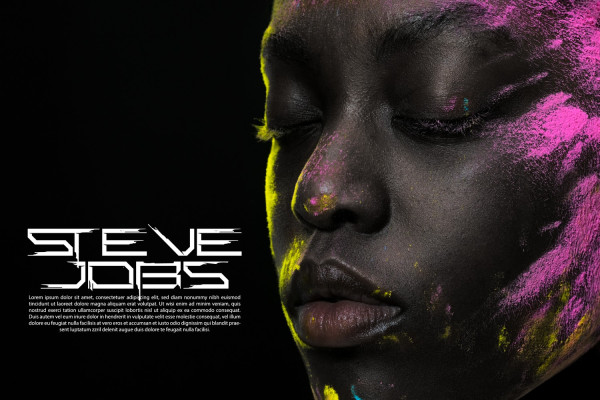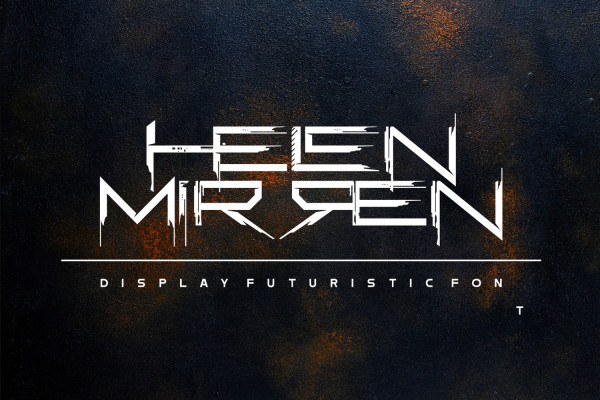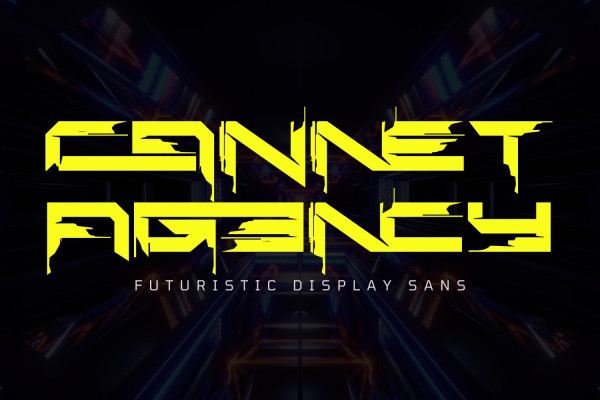
CANNET AGENCY TYPEFACE
Cannet Agency Typeface is a cyberpunk display font, one of kind techno cyber font that is versatile to apply in various design styles. It’s built to be big, sleek, and formidable—just like the mechanically engineered beings that inspired it. Take a trip through time and use it for movie posters set in space or in the future.
Cannet Agency Typeface was built with OpenType features and includes 100 ligatures, alternate, numbers, punctuation, and it also supports other languages.
AC AD AL AN AR AS AT AU AV BE CA CE CH CO CT DE DI EA EC ED EE EL EM EN EP ER ES ET FE FO FR GE HA HE HI HO IE IC IL IN IO IR IS IT JU KE LA LE LI LL LO LY MA ME MI NC ND NE NG NO NT NS OC OF OM ON OO OP OR OT OU OW PA PR RA RD RE RI RO RS RT SE SH SI SO SS ST TA TE TH TI TO TR TT UM UN UR VE WI WO